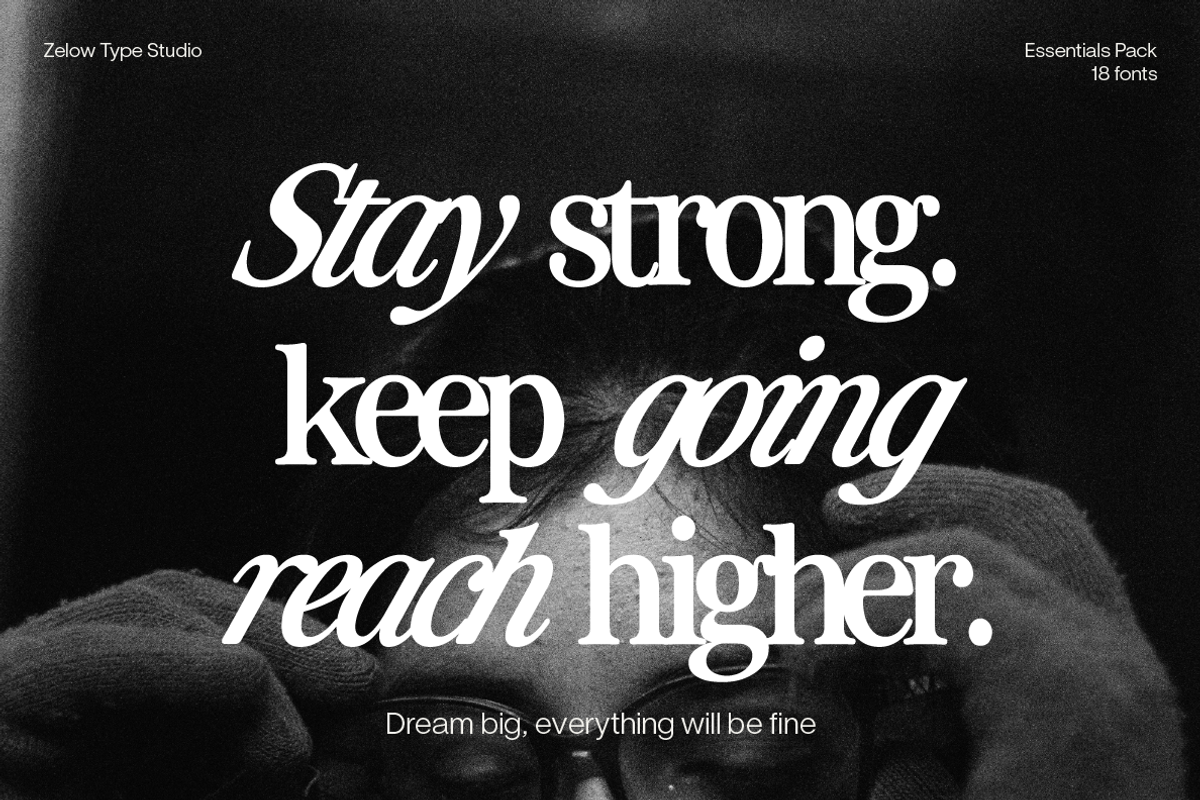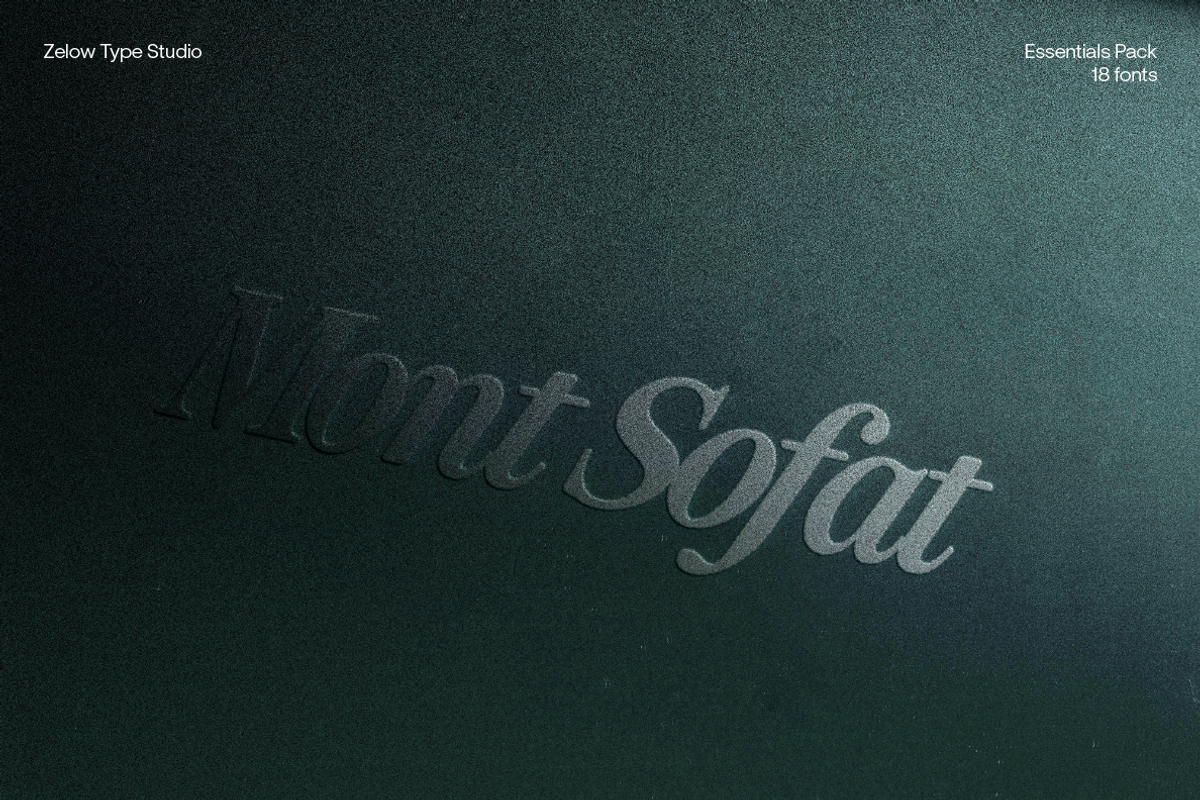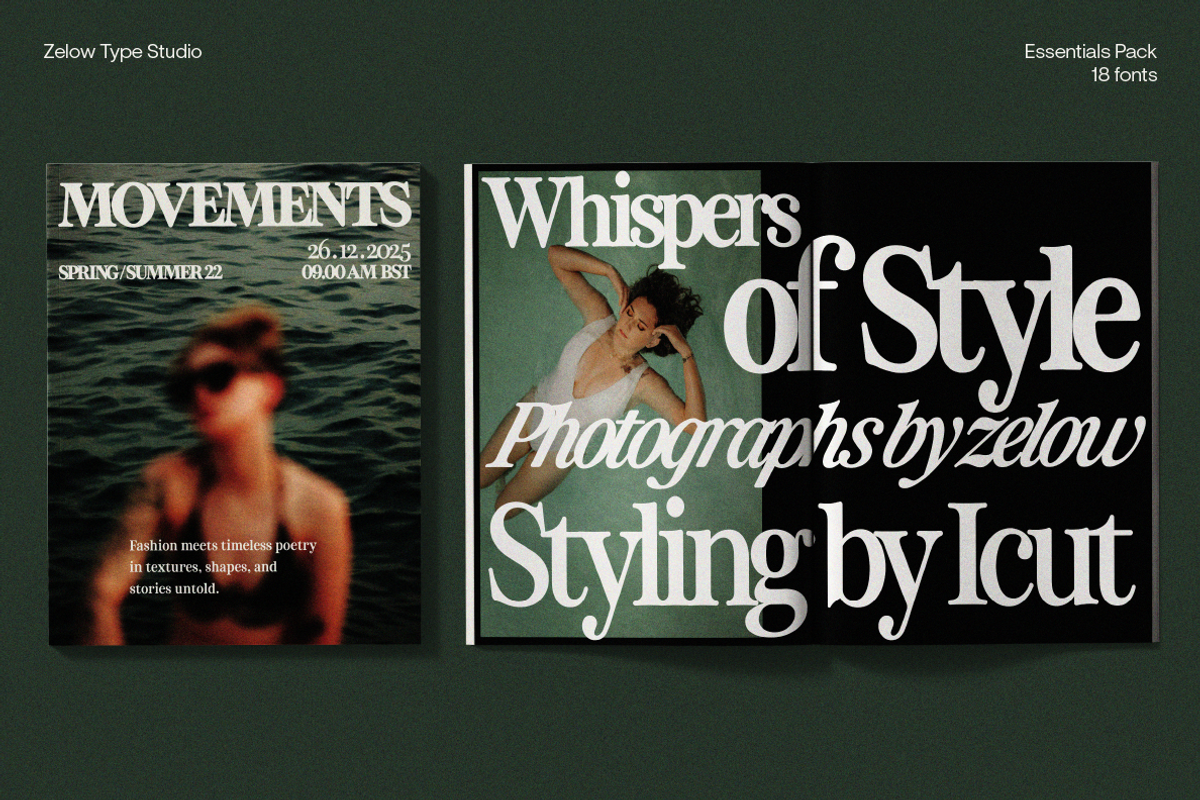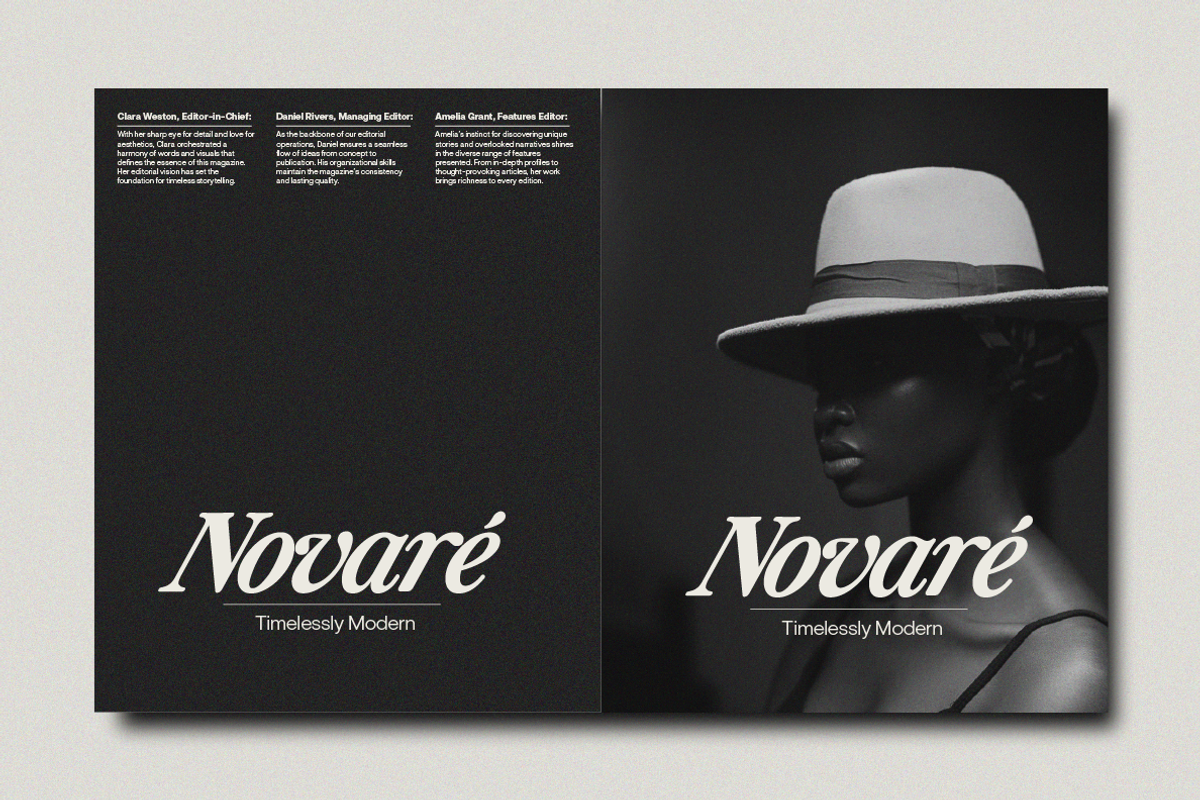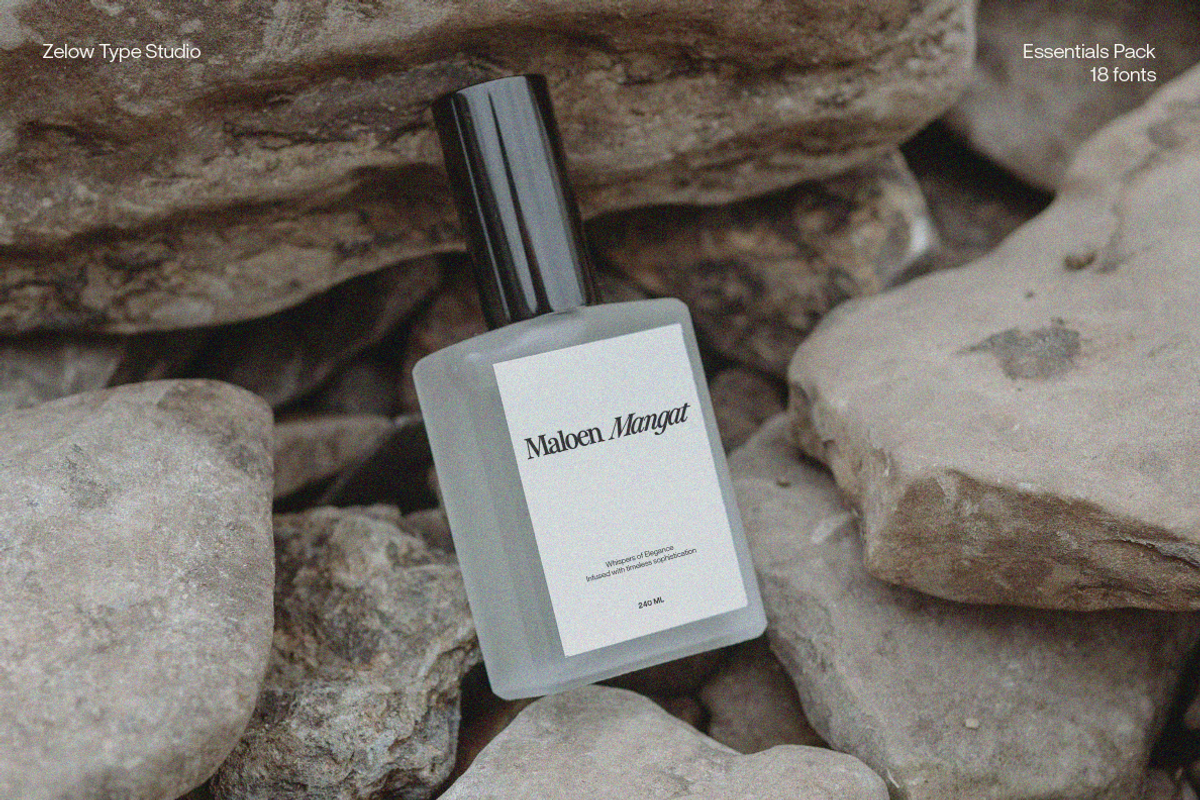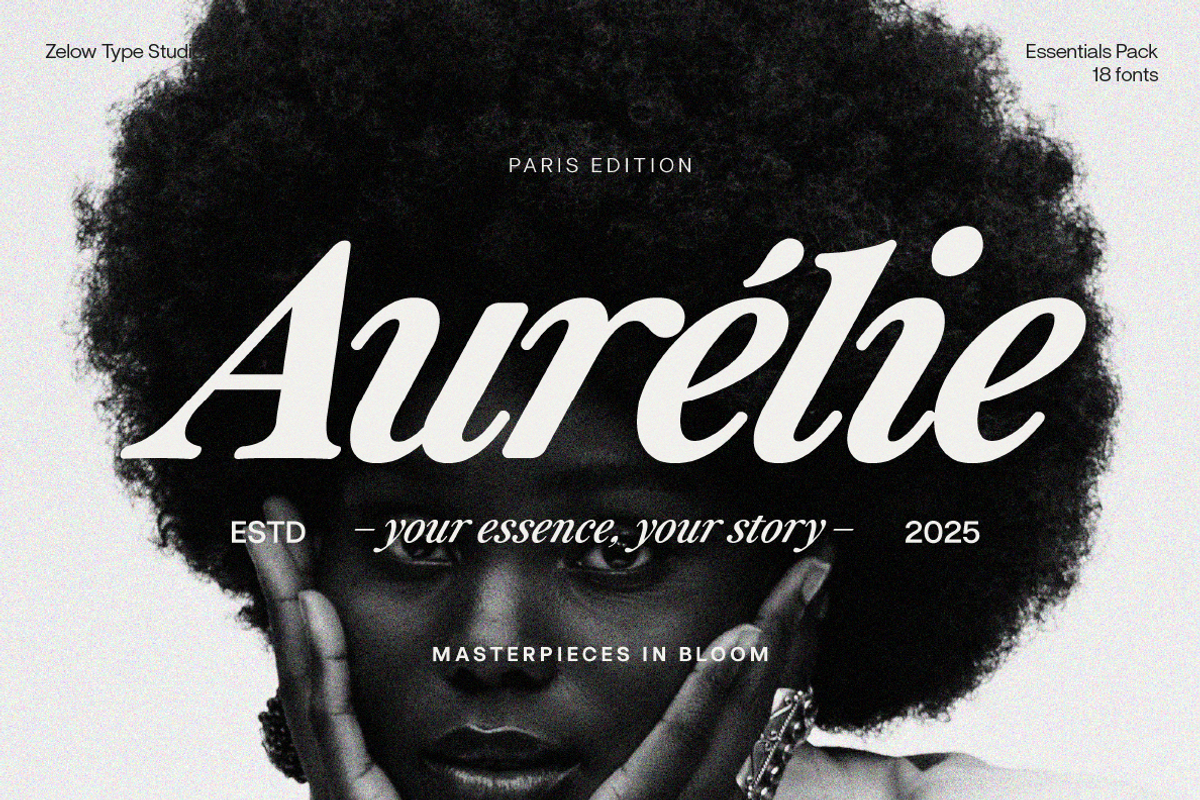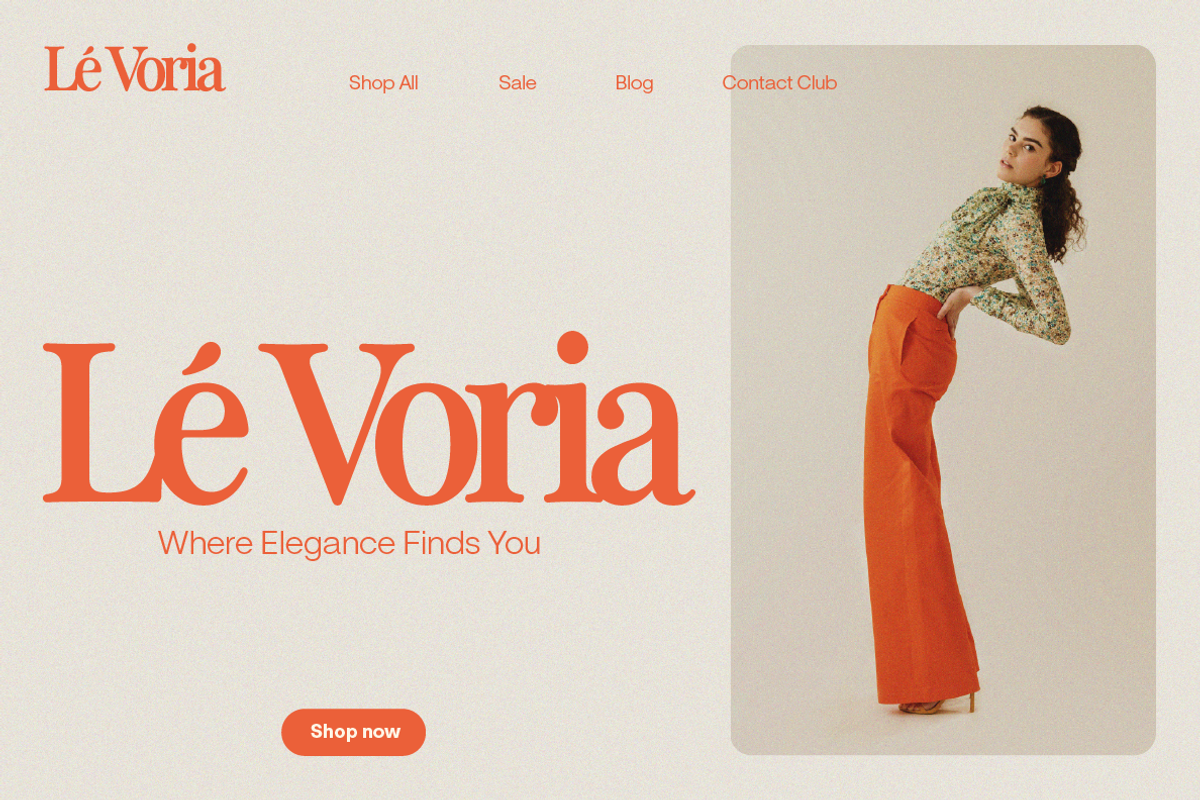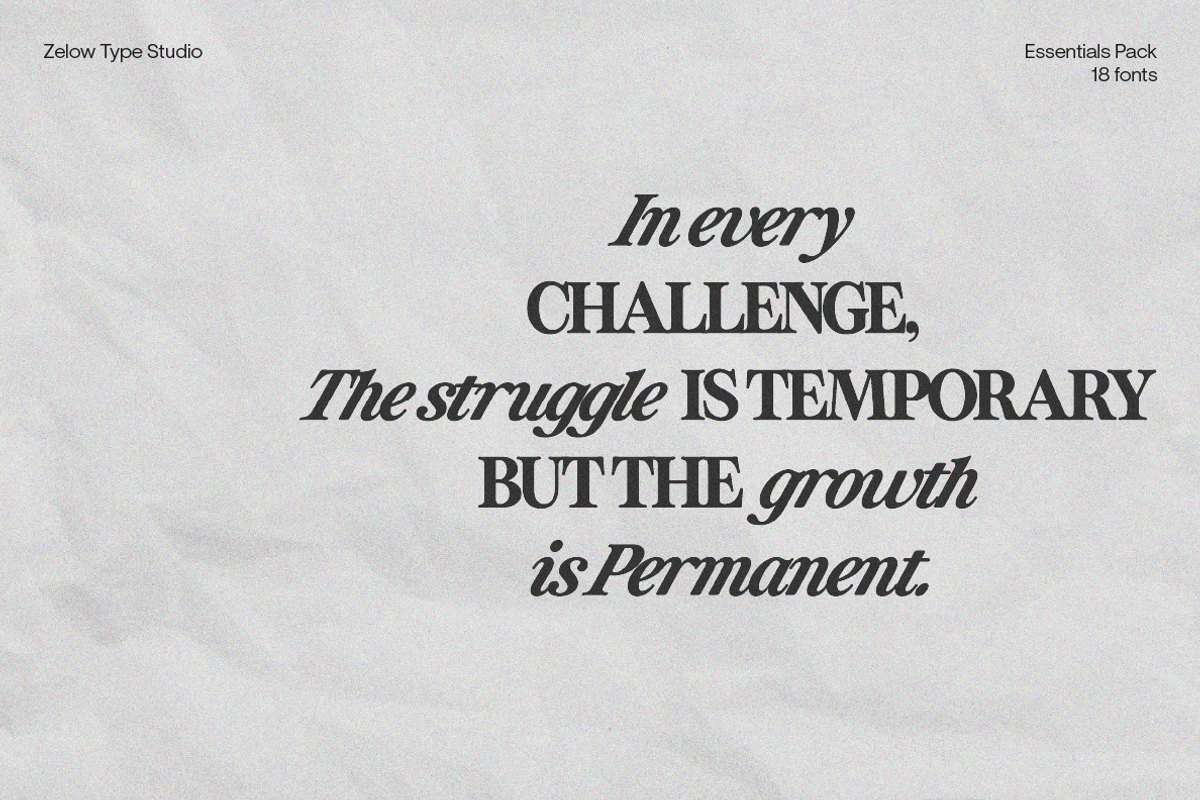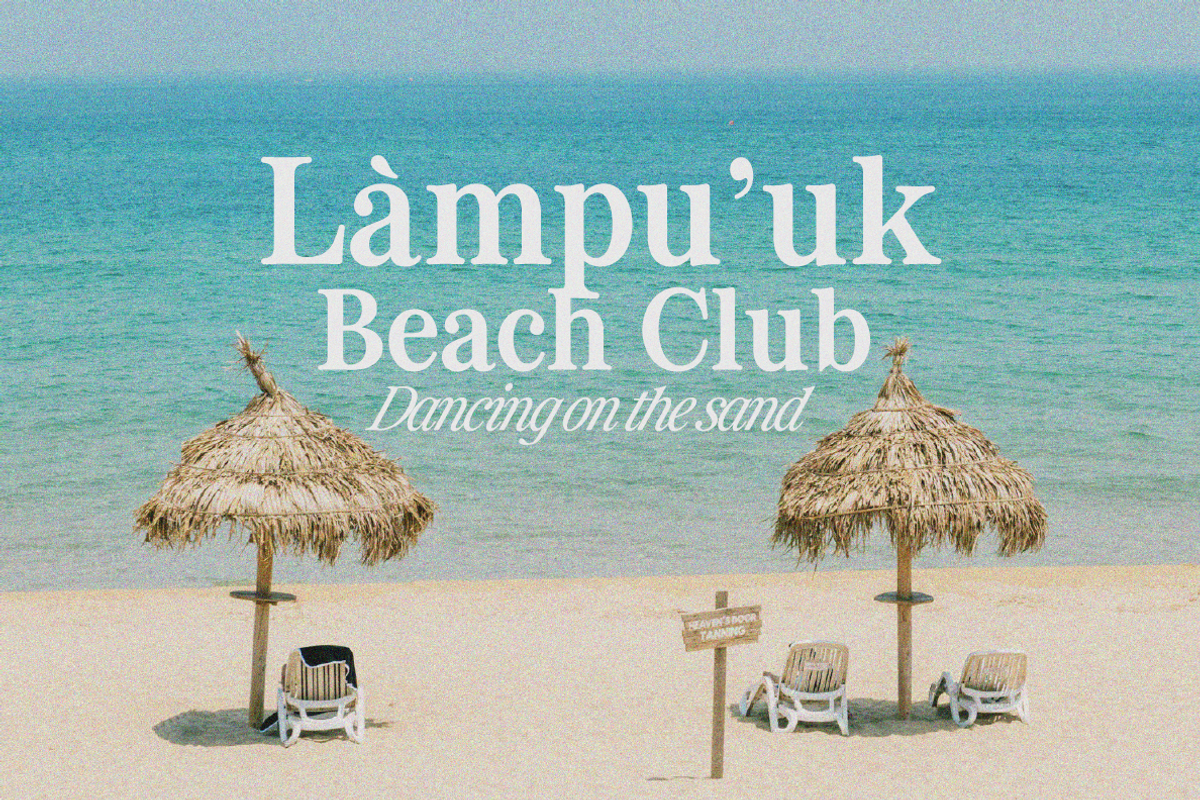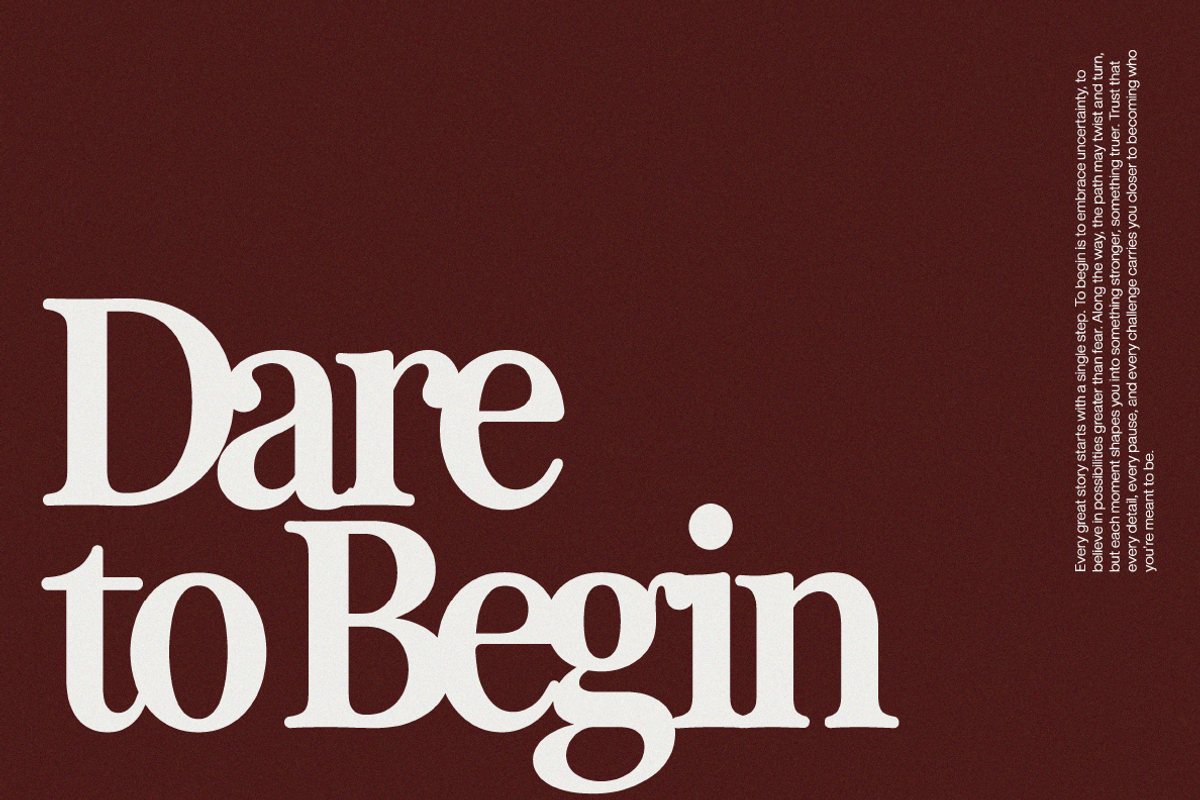
ZT Otez Essentials – 18-Font Serif
ZT Otez Essentials is the refined core of the full ZT Otez family — carefully curated to give you the most versatile weights and italics you’ll reach for every day. With 18 fonts in total (9 weights + matching italics), this collection distills the elegance and power of the complete 90-style system into a timeless, highly usable package.
- 18 fonts total: 9 uprights + 9 italics
- Weights from Thin to Black
- Dramatic 28° italic slant
- Extensive multilingual support (156+ languages)
- Perfect for branding, packaging, editorial, posters, and digital design
Inspired by classic editorial typography and 20th-century French book design, ZT Otez Essentials balances sophistication with usability. Its italics carry bold, expressive energy, while the upright weights deliver clarity and authority — together, they offer a toolkit that adapts seamlessly across modern design needs.
Whether you’re building luxury branding, designing a fashion magazine, or crafting timeless packaging, ZT Otez Essentials gives you the confidence of a professional serif without the overwhelm of too many styles. It’s the pure essence of ZT Otez — elegant, versatile, and built to last.